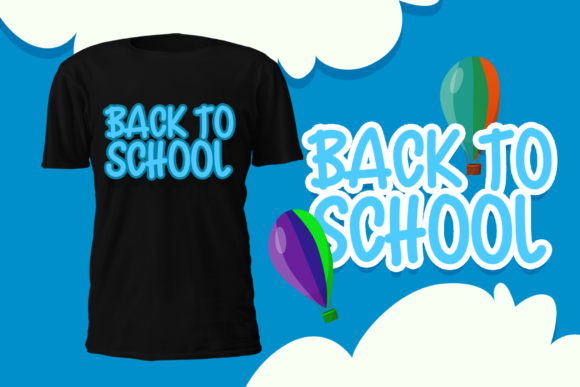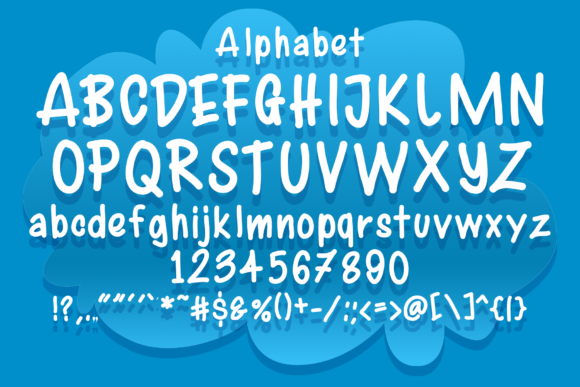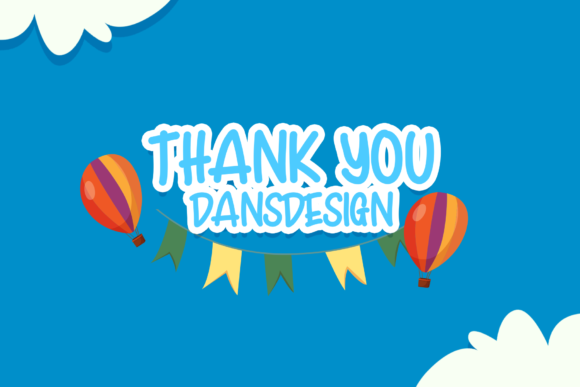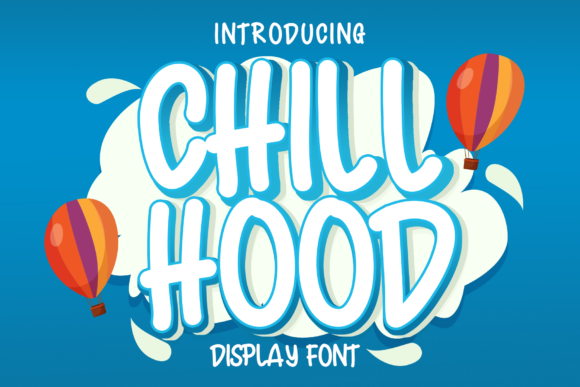
Discover the Ultimate Display Font: Chiil Hood
Are you tired of using the same old fonts for your designs? Look no further! Chiil Hood is a cool, relaxed, and trendy display font that’s about to become your new go-to. In this article, we’ll dive into the world of Chiil Hood, exploring its features, benefits, and uses. Whether you’re a designer, crafter, or simply a font enthusiast, you won’t want to miss out on this fantastic addition to your library.
What is Chiil Hood Font?
Chiil Hood is a modern display font that’s perfect for making a statement. Its unique blend of cool and relaxed vibes makes it an ideal choice for a wide range of design projects. From posters and flyers to social media graphics and craft projects, Chiil Hood is the perfect companion for any creative endeavor.
Key Features of Chiil Hood Font
- Cool and Relaxed Style: Chiil Hood boasts a trendy and laid-back aesthetic that’s sure to capture the attention of your audience.
- Neat and Friendly: The font’s clean lines and approachable feel make it perfect for designs that require a personal touch.
- Versatile: Chiil Hood can be used for a variety of projects, from digital designs to print materials.
- Easy to Read: Despite its trendy style, Chiil Hood remains highly legible, ensuring your message is conveyed with clarity.
Benefits of Using Chiil Hood Font
So, why should you add Chiil Hood to your font library? Here are just a few benefits you can expect:
- Instant Style Boost: Chiil Hood adds a touch of modern flair to any design, making it perfect for projects that require a bit of panache.
- Time-Saving: With Chiil Hood, you can create stunning designs in no time. Its versatility and ease of use make it a huge time-saver.
- Consistency: By using Chiil Hood across your designs, you can maintain a consistent visual identity that’s sure to leave a lasting impression.
Who Can Benefit from Chiil Hood Font?
Chiil Hood is perfect for:
- Graphic Designers: Add Chiil Hood to your arsenal and take your designs to the next level.
- Crafters: Use Chiil Hood to create beautiful, professional-looking craft projects.
- Social Media Enthusiasts: Elevate your social media graphics with Chiil Hood’s trendy style.
- Small Business Owners: Create stunning marketing materials with Chiil Hood and stand out from the competition.
How to Use Chiil Hood Font
Using Chiil Hood is easy! Here are a few tips to get you started:
- Pair it with Other Fonts: Combine Chiil Hood with complementary fonts to create visually appealing designs.
- Experiment with Colors: Try out different color schemes to find the perfect match for your Chiil Hood font.
- Play with Sizes: Use Chiil Hood in various sizes to create visual hierarchy and add emphasis to your designs.
In conclusion, Chiil Hood is a must-have font for any designer, crafter, or creative enthusiast. Its unique blend of cool, relaxed, and trendy vibes makes it perfect for a wide range of design projects. With its ease of use, versatility, and style, Chiil Hood is sure to become your new go-to font. So why wait? Add Chiil Hood to your library today and take your designs to new heights!